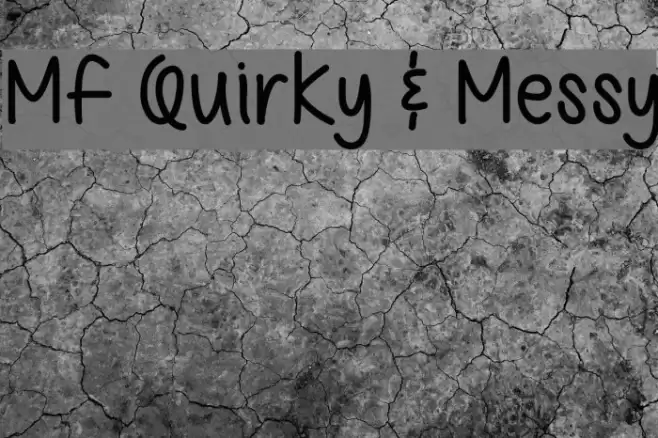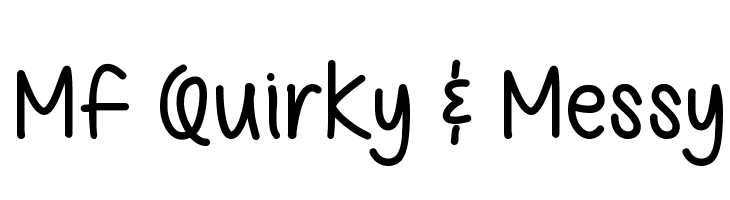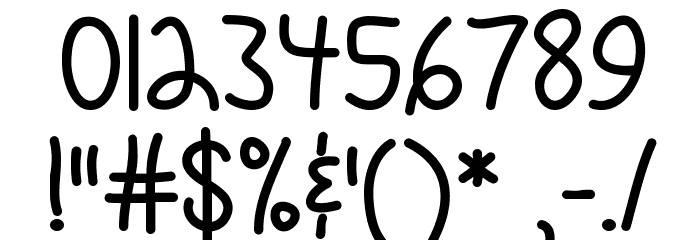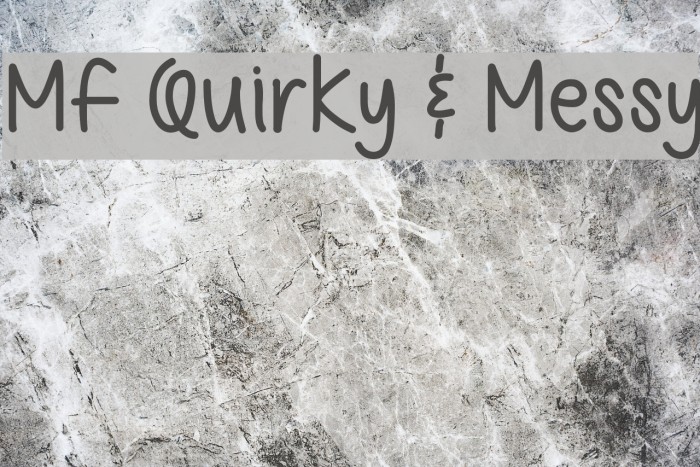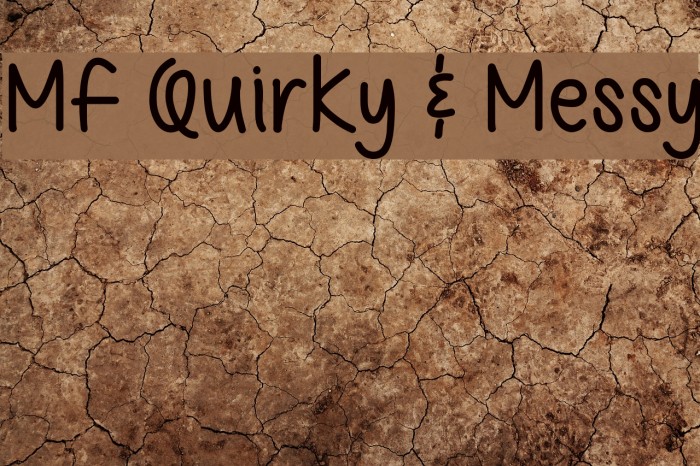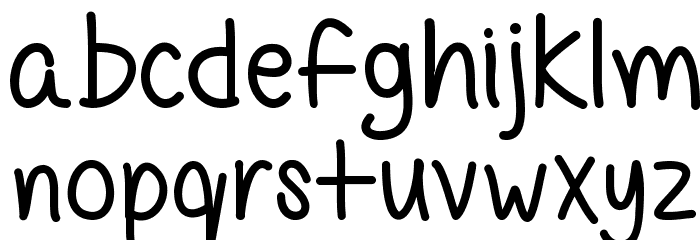
Mf Quirky & Messy Font
Mf Quirky & Messy Description
This playful and informal font features a handwritten style with a quirky and slightly messy appearance. The characters are unevenly sized, with a casual and spontaneous feel. The uppercase letters maintain a consistent height, while the lowercase letters vary in size, adding to the font's whimsical nature. The strokes are smooth and rounded, giving a friendly and approachable vibe. The numbers are bold and clear, matching the overall style of the alphabet. Special characters are included, maintaining the same playful aesthetic.
A playful, handwritten font with a quirky and casual style from Uncategorized fonts.
- Proposed Projects: Ideal for children's books, casual invitations, greeting cards, and playful branding projects.
- Overall Style: Casual, Playful
- Use Case: Headlines, Informal Text, Branding